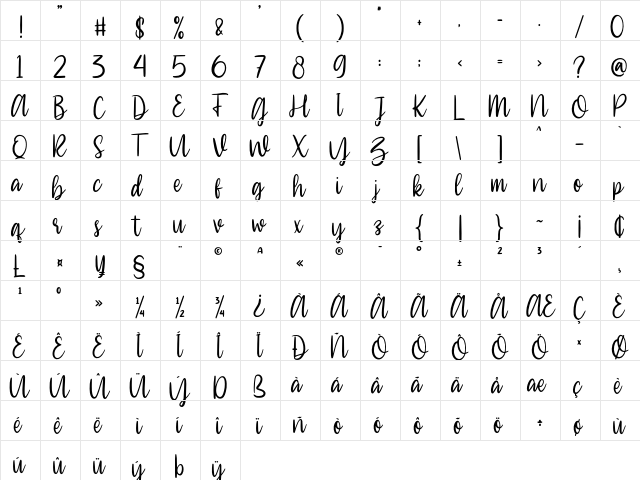
Southiya Regular
| Foundry | Stringlabs |
| Designer | Stringlabs |
Design Context for Southiya Typeface
Southiya is a composed and adaptable typeface that performs quietly and consistently across a wide range of design contexts.